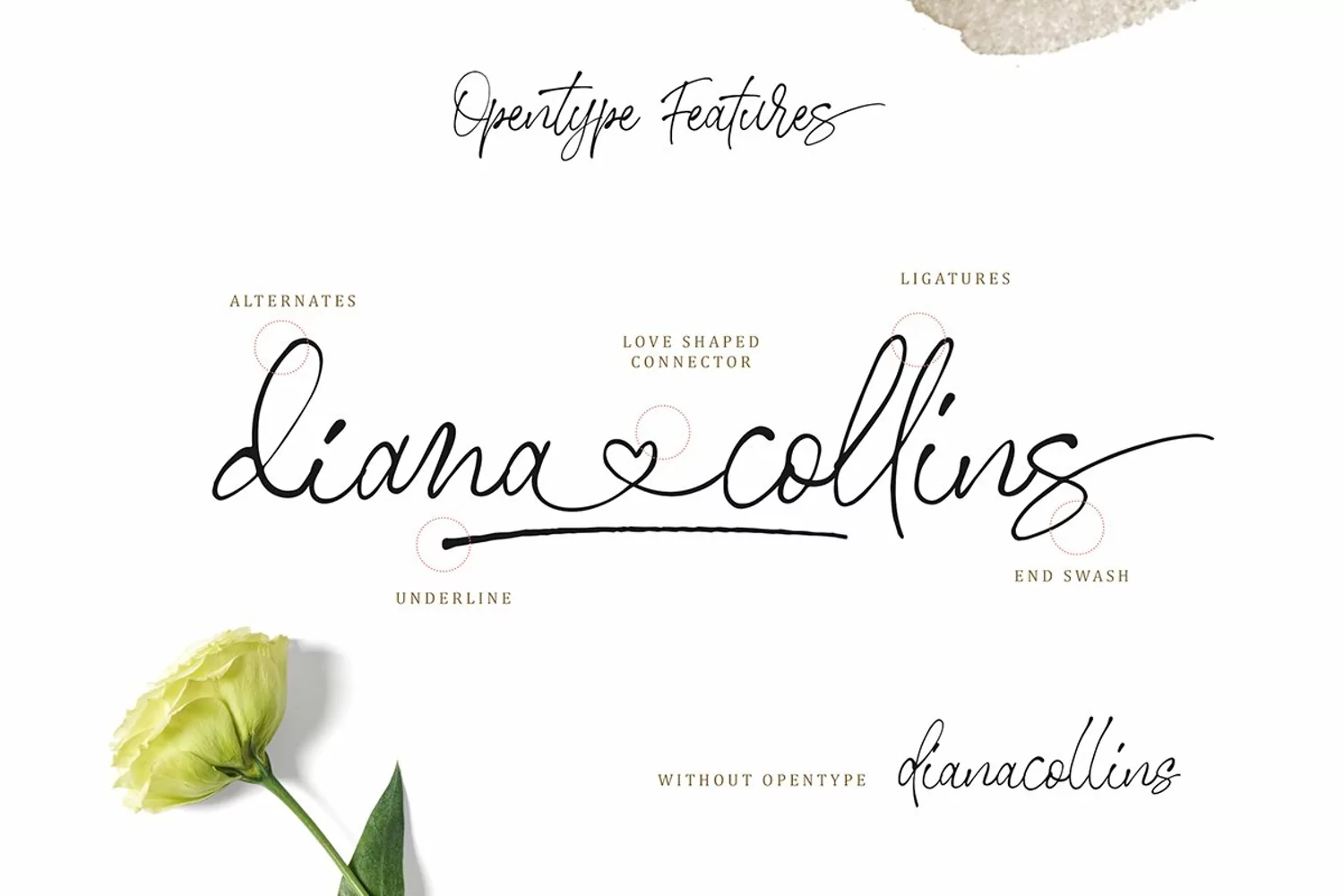
Stephen & Gillion is signature script with three style that contain stylistic alternate, swash, etc to create your own customized signature or logo design. Stephen & Gillion is a signature font that you can use to make a logo for branding, beautiful fashion design, suitable for wedding invitation, or handwritten quote. Come with heart-shaped connector! Also already PUA Encoded.